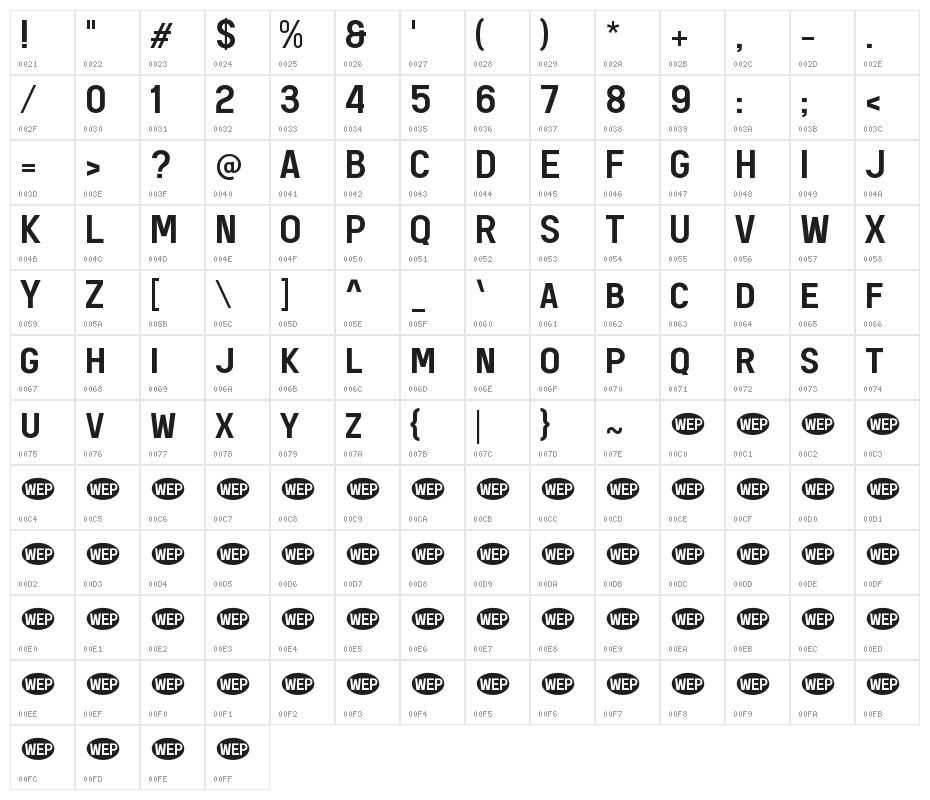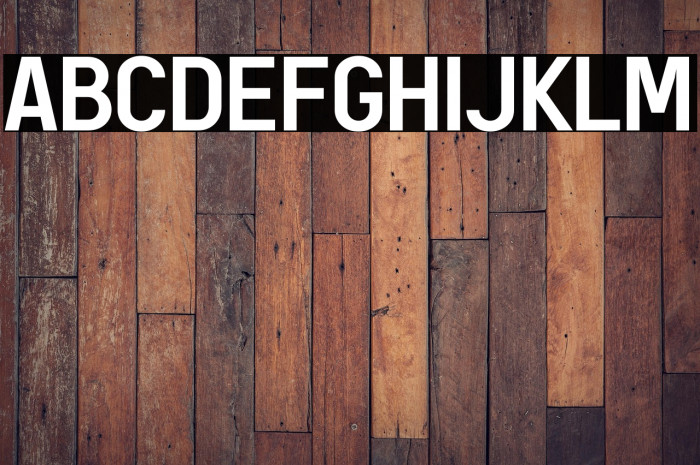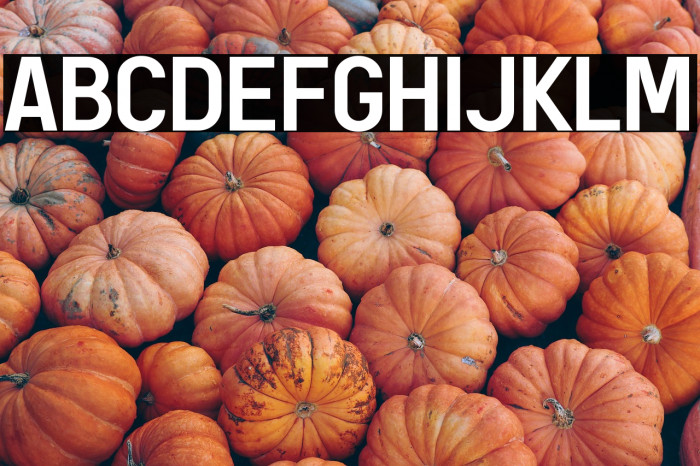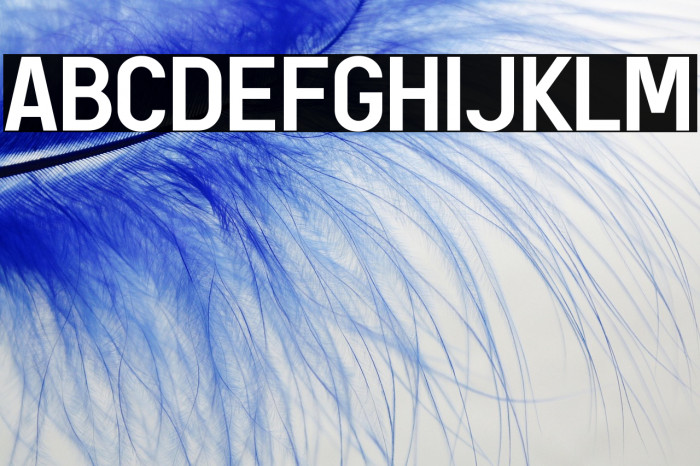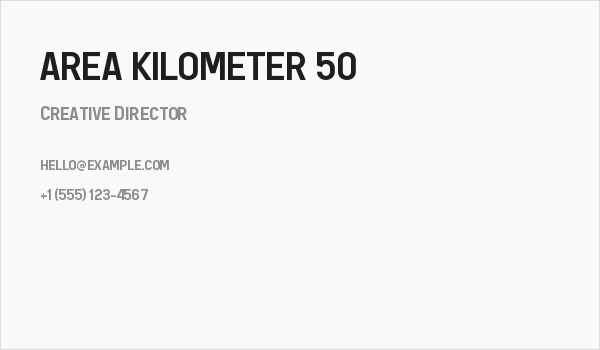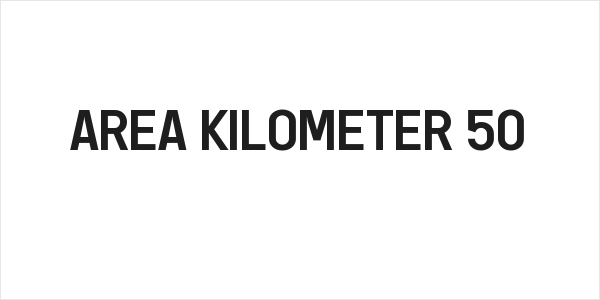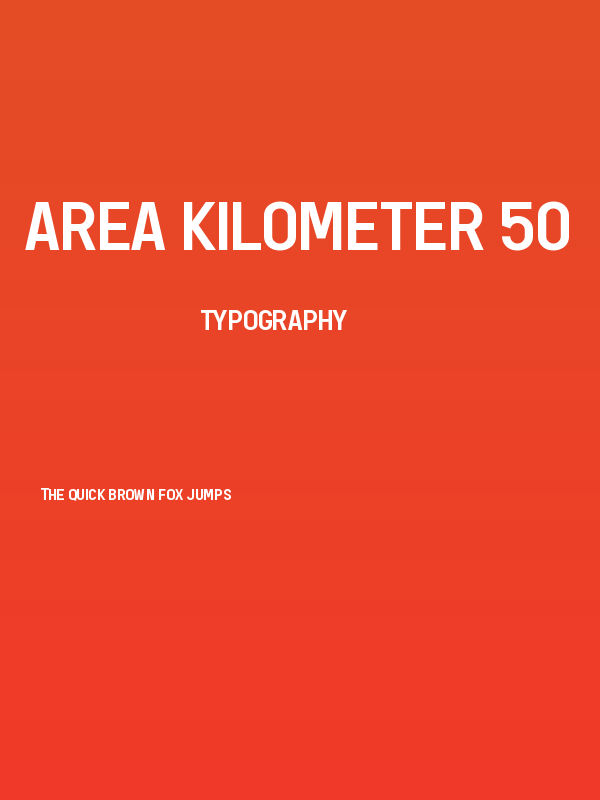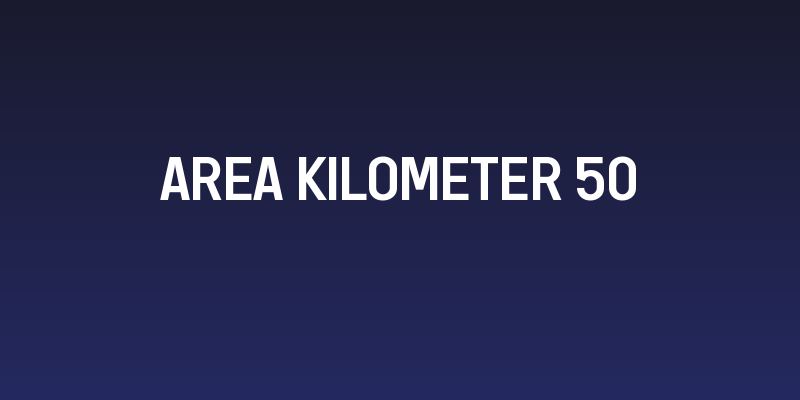
AREA KILOMETER 50 Font
AREA KILOMETER 50 Description
This font features a bold and modern sans-serif style with clean, straight lines and uniform stroke widths. The characters are well-proportioned, offering a strong and impactful appearance suitable for various design needs. The uppercase and lowercase letters maintain a consistent height, providing a harmonious look. The numerals are clear and easily distinguishable, enhancing readability. Special characters are designed with the same attention to detail, ensuring they integrate seamlessly with the rest of the font. This font's simplicity and clarity make it versatile for both digital and print media.
| Proposed Projects | Ideal for branding, advertising, headlines, and digital interfaces where clarity and impact are essential. |